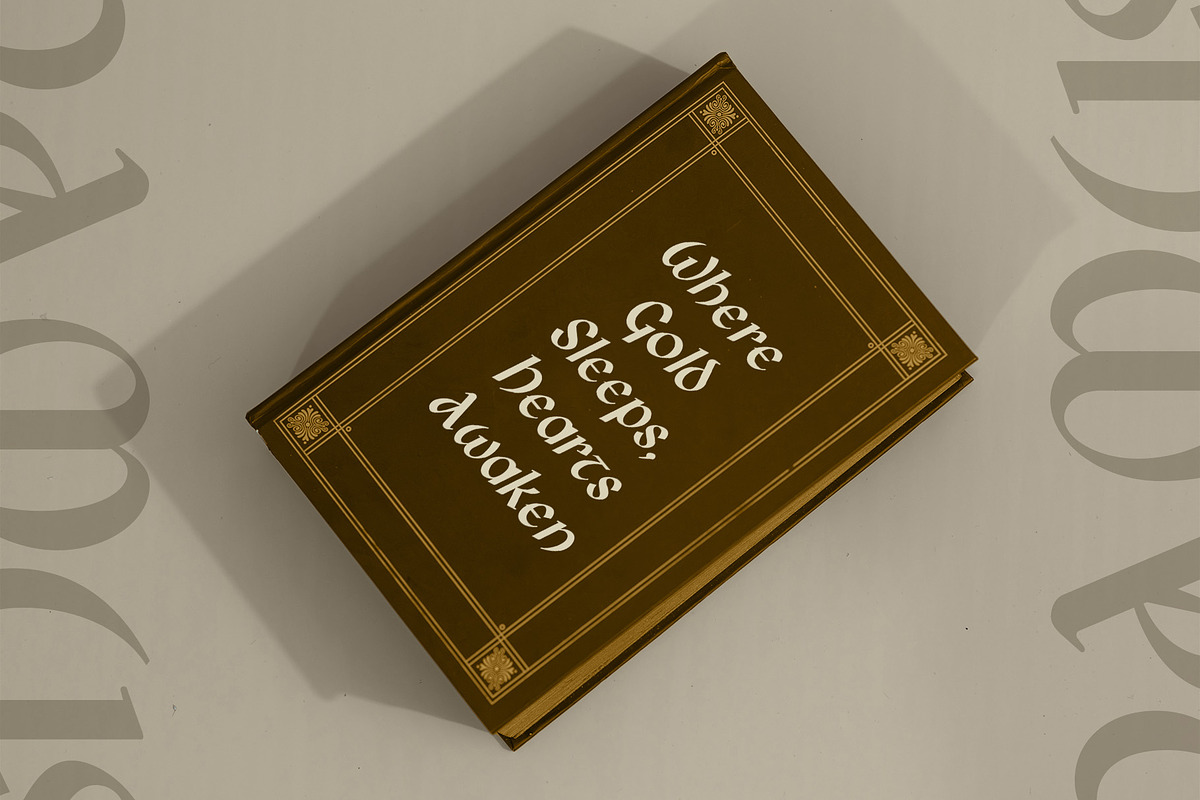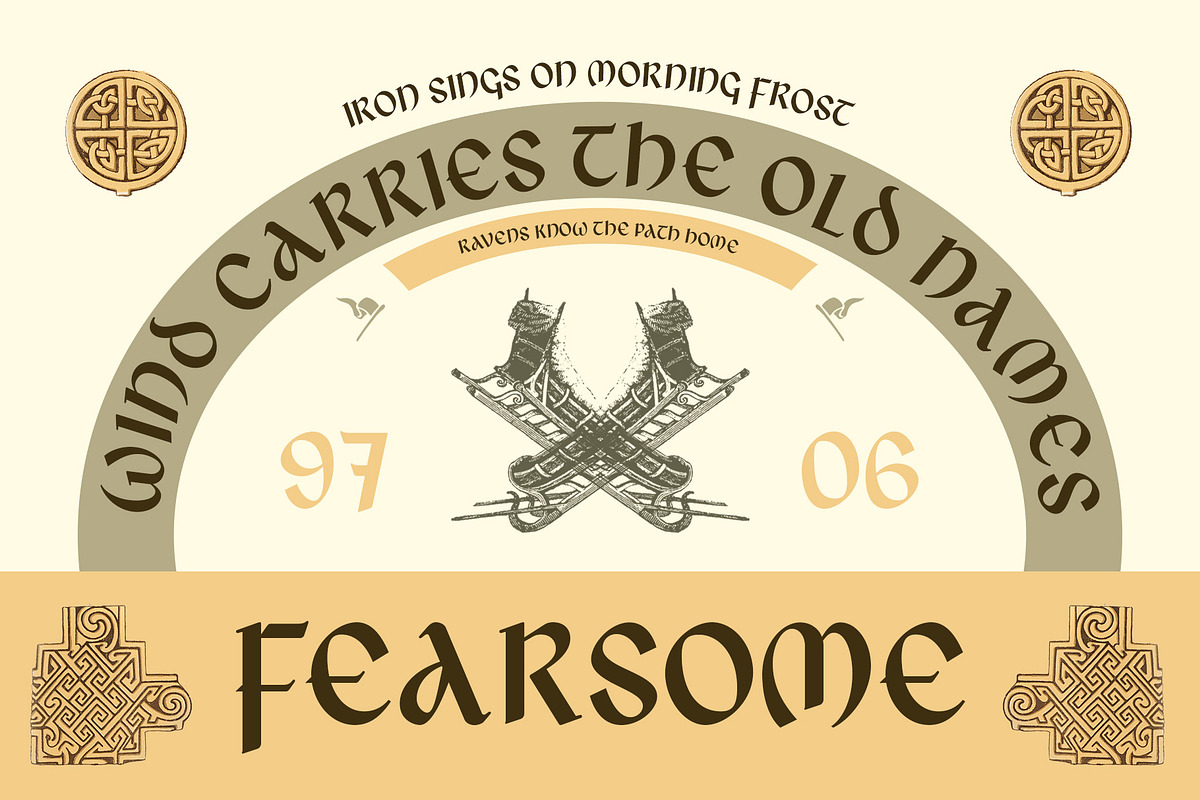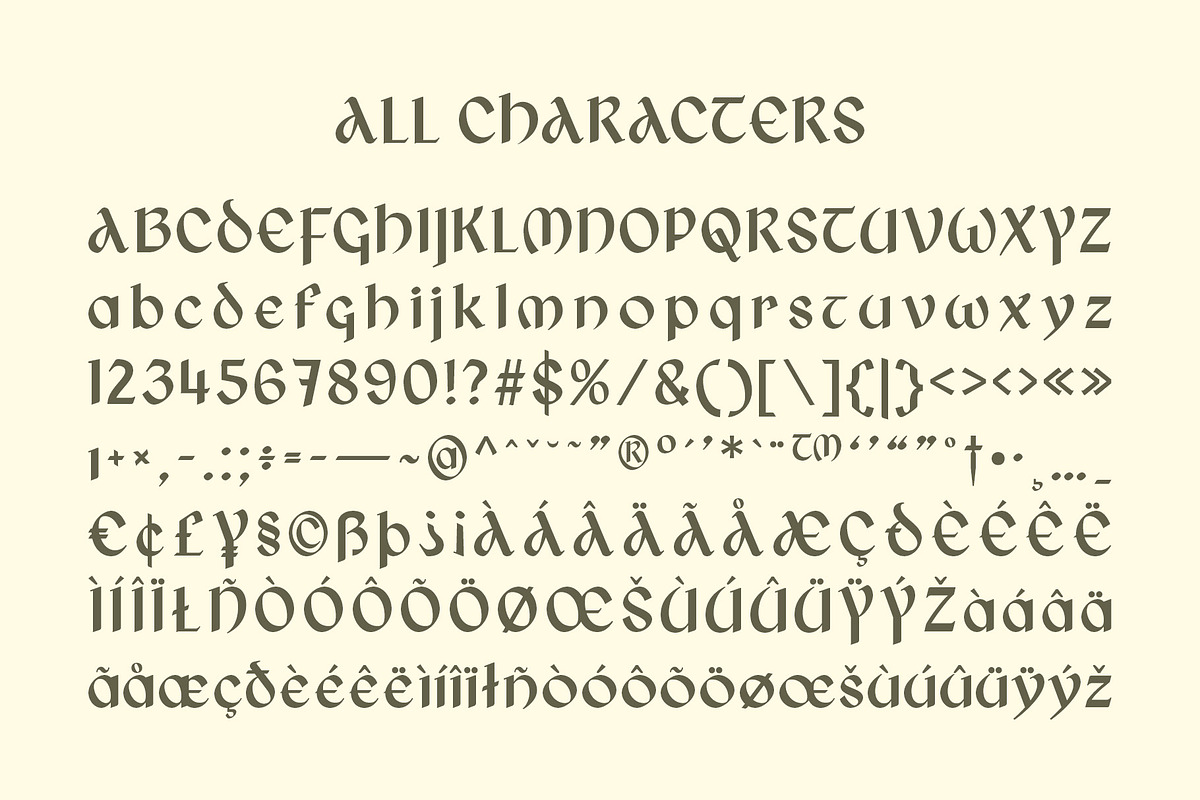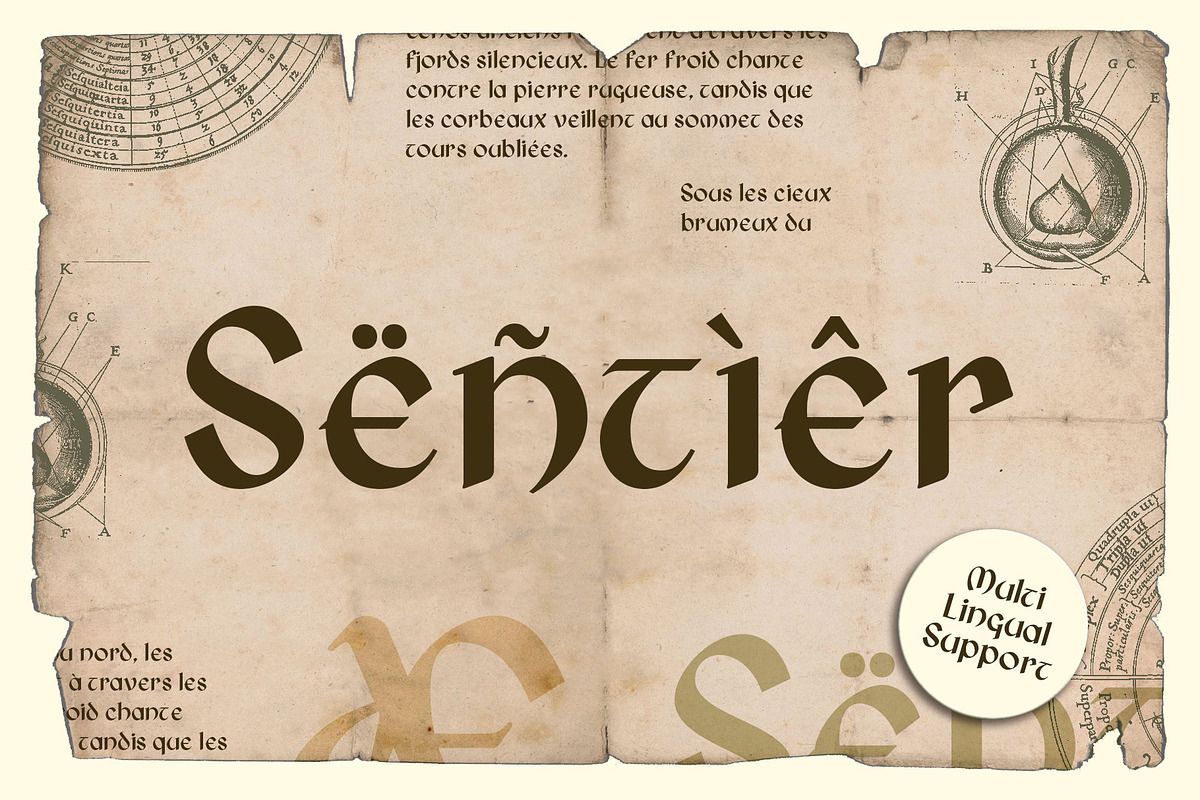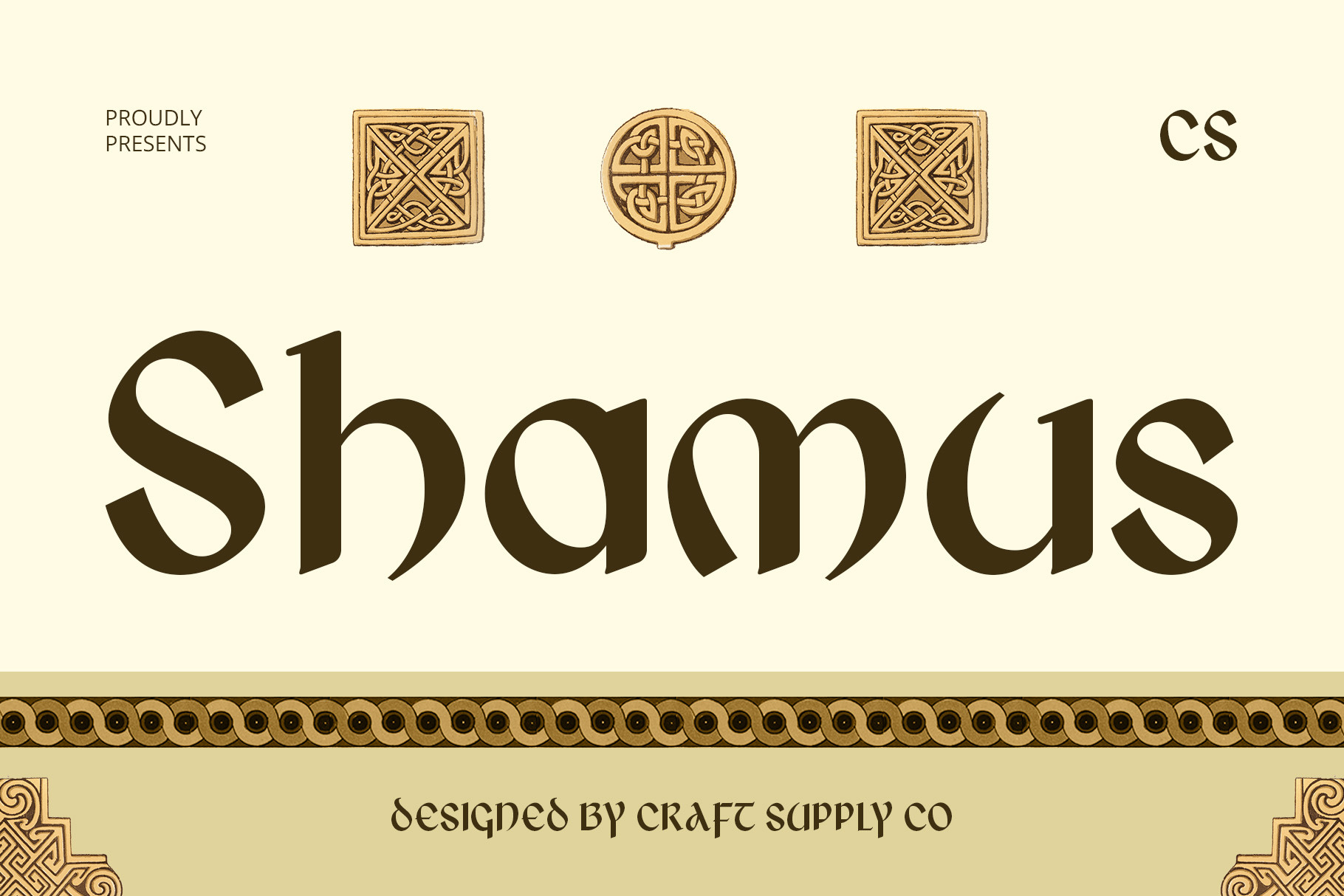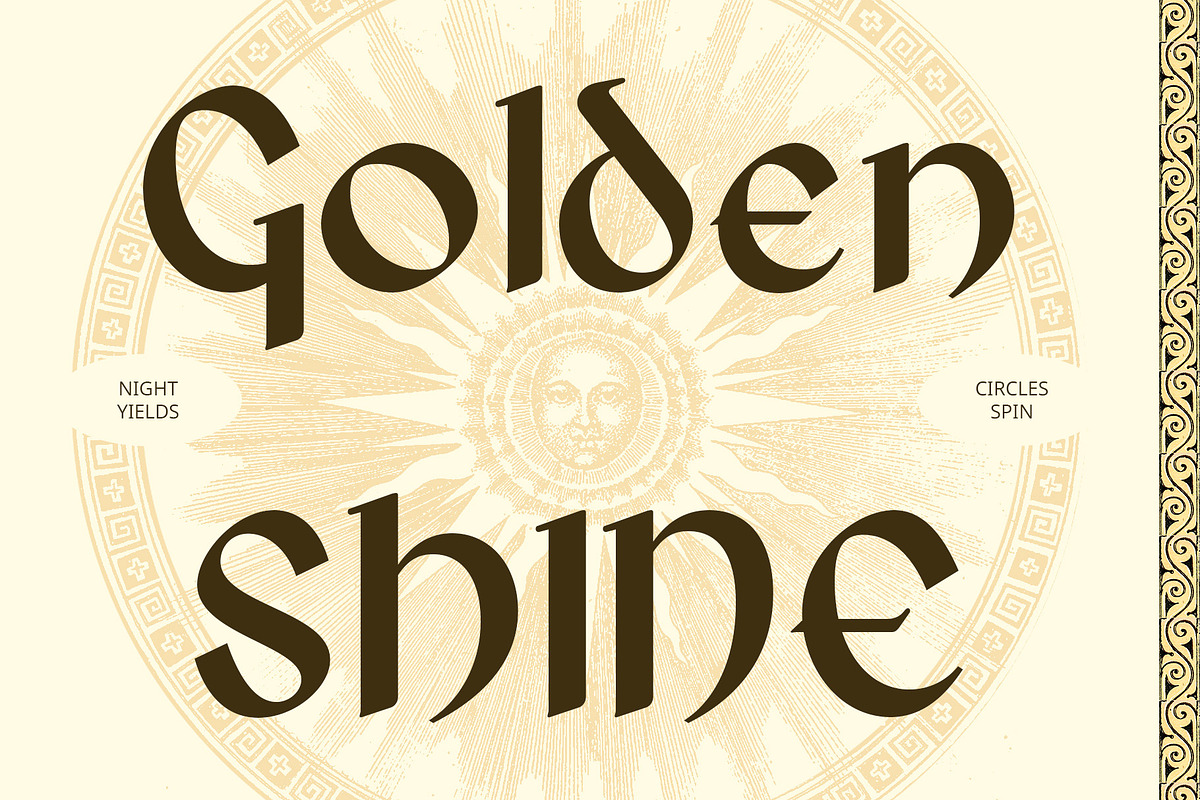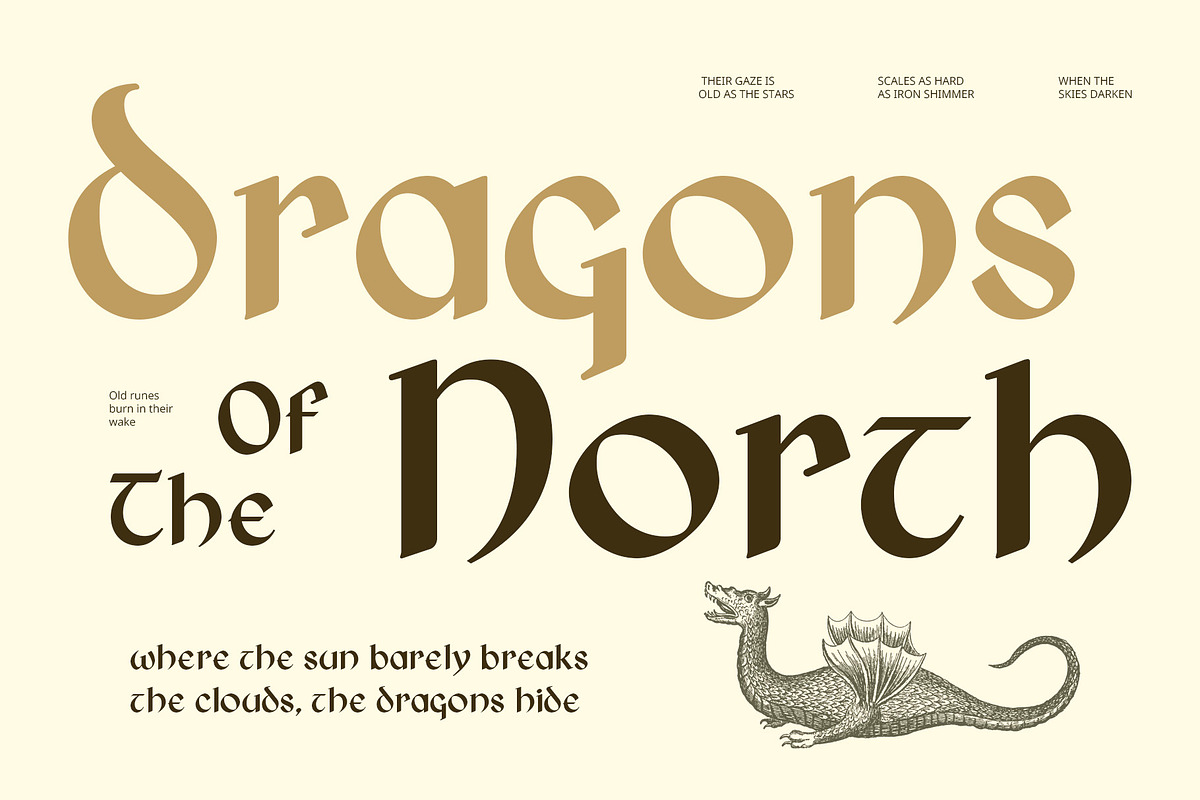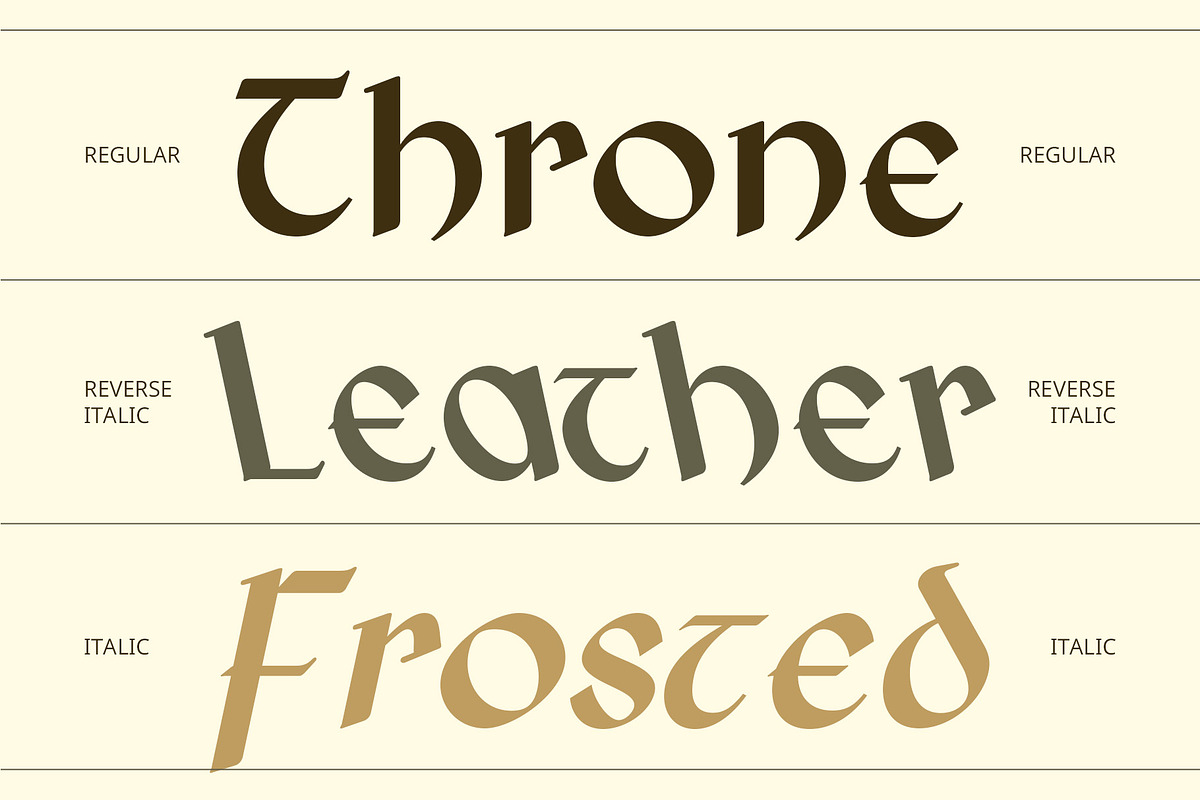
CS Shamus – Uncial Font
CS Shamus – Uncial Font: Antique Elegance in Every Letter
A Journey Through Time with Ancient Calligraphy CS Shamus is a captivating uncial display font that draws its inspiration from the beautiful, rounded forms of medieval calligraphy. With soft, flowing curves and half-capital letterforms, this font exudes a timeless quality, creating an antique yet elegant aura. It offers an organic, decorative feel, making it ideal for projects that evoke a sense of history, mysticism, or classic charm.
Rounded Forms and Curved Strokes for Gentle Impact The carefully crafted rounded forms and curved strokes of CS Shamus create a delicate, yet strong presence. The half-capital styling further enhances its vintage character, giving it a fluid and organic look that feels both ancient and refined. These features combine to deliver a soft, graceful impression, making this font a perfect choice for elegant, historical, or spiritual designs.
Ideal for Fantasy, Historical, and Spiritual Designs Whether used for fantasy book titles, historical branding, or spiritual illustrations, CS Shamus evokes an atmosphere of mysticism and tradition. It’s perfect for designs that seek to communicate a connection with the past, whether through storytelling, historical themes, or divine references. From book covers to classic logos, its unique, antiquated style breathes life into any project with a sense of reverence for the old world.
- CS Shamus Regular
- CS Shamus Italic
- CS Shamus Reverse Italic